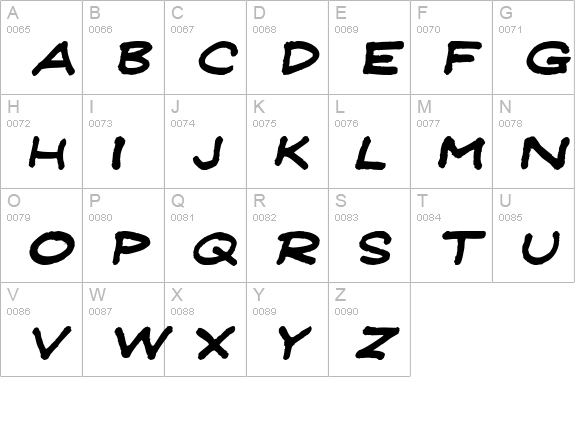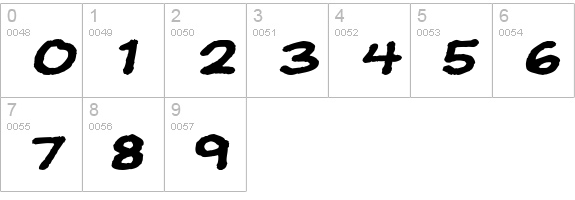
JeffreyPrint JL Wide Italic is a distinctive, extended-width, italic variant in the JeffreyPrint typeface family \xE2\x80\x94 well suited to design and typography projects.
JeffreyPrint JL Wide Italic font is a stunning typeface that effortlessly combines elegance and modernity. Its sleek and sophisticated design is perfect for adding a touch of style to any project. The italicized style of this font gives it a dynamic and stylish appearance, making it ideal for headers, titles, and other prominent text elements. What sets JeffreyPrint JL Wide Italic font apart is not only its unique design but also the fact that it is available for free download at FontsMarket.com. This means that you can easily access this high-quality font without any cost, making it a valuable addition to your font collection. Whether you are working on a branding project, a website design, or any other creative endeavor, JeffreyPrint JL Wide Italic font is sure to elevate the overall look and feel of your work. Download it today for free and discover the endless possibilities this font has to offer.